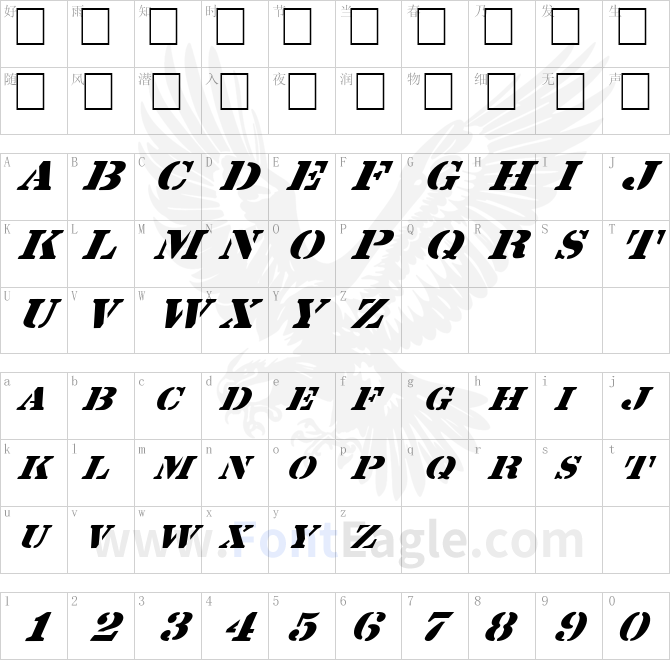
FZ-UNIQUE-25-ITALIC is a great font, widely used in graphic design, single-page menu design, poster design and other fields, and is deeply loved by designers.FZ-UNIQUE-25-ITALIC download.